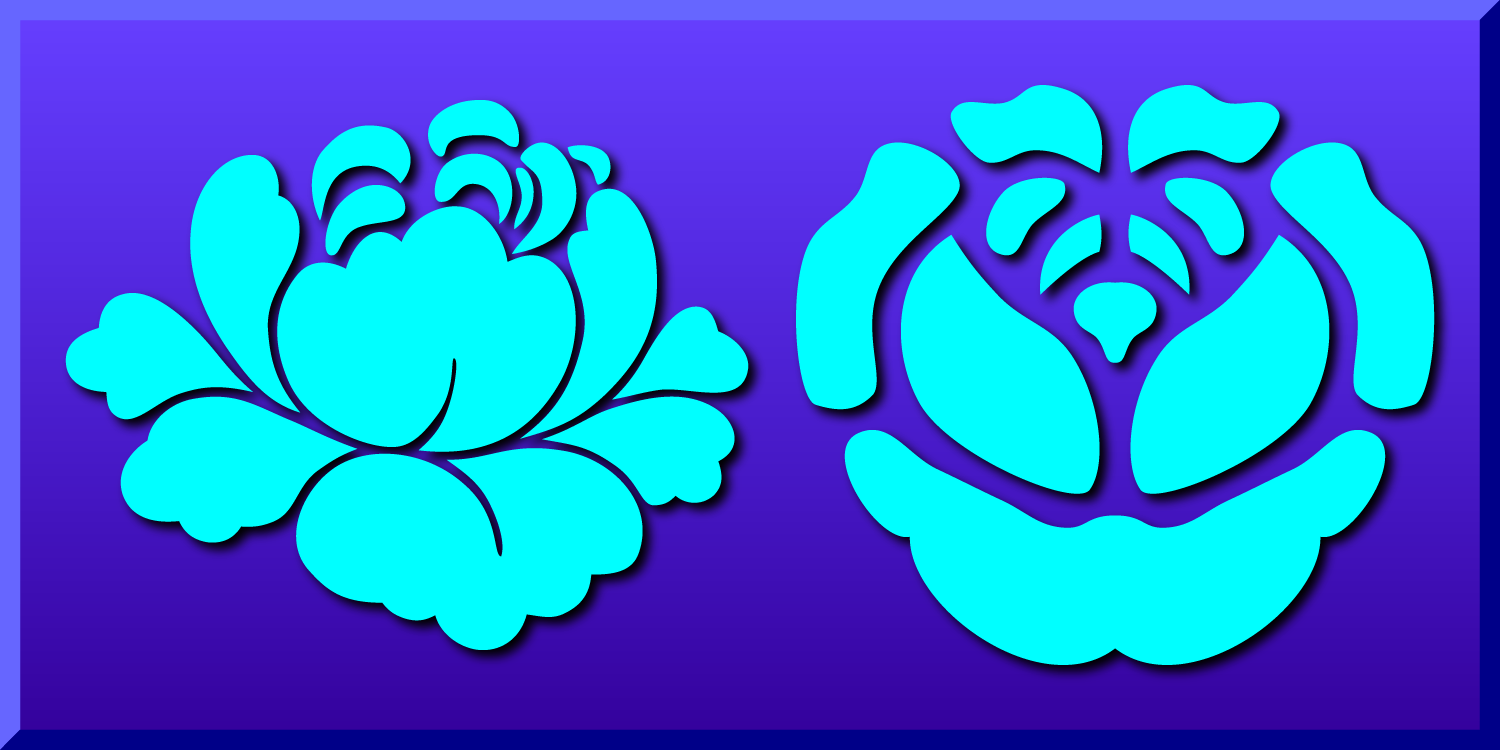
The Art Nouveau Flowers Font is perfect for botanical garden signage, floral boutique branding, vintage wedding invitations, art gallery exhibition materials, botanical illustration projects, luxury perfume packaging, fine jewelry store logos, organic cosmetics branding, and elegant spa promotional materials.
What makes the Art Nouveau Flowers Font so exciting is its exquisite botanical elegance that instantly captures the organic beauty and artistic sophistication of the Art Nouveau movement. This enchanting typeface embodies the flowing natural forms and decorative artistry that defined early 20th century design, creating an immediate impression of refined beauty and artistic heritage. The font's floral character communicates the natural grace and aesthetic refinement that luxury botanical businesses need to attract discerning customers who appreciate both artistic beauty and the timeless elegance of nature-inspired design.
The Art Nouveau Flowers Font family includes Regular weight with complete uppercase and lowercase alphabets, comprehensive numerical sets, essential punctuation marks, and botanical decorative elements that maintain the floral Art Nouveau aesthetic throughout your nature-inspired and luxury design projects.
Luxury botanical businesses and artistic organizations consistently select Art Nouveau Flowers Font Free Download for projects that require authentic artistic appeal and sophisticated natural communication. This exceptional typeface excels in environments where establishing connection to artistic heritage and botanical beauty is crucial for attracting clientele who value aesthetic refinement and natural elegance. The font's artistic character helps communicate the quality and cultural sophistication that luxury botanical customers expect from premium nature-inspired products and services.
The distinctive qualities of Art Nouveau Flowers Font reflect the revolutionary artistic traditions of the Art Nouveau period where natural forms and decorative beauty transformed commercial design and artistic expression. Each character demonstrates the flowing organic lines and delicate botanical details that characterized this influential artistic movement. The font's proportions and spacing create perfect harmony between natural grace and artistic sophistication that modern luxury botanical businesses require for effective premium market positioning.
Contemporary luxury enterprises appreciate how Art Nouveau Flowers Font communicates artistic heritage and botanical refinement. Whether designing packaging for high-end floral arrangements, creating branding for luxury botanical products, or developing marketing for artistic garden experiences, this font delivers the sophisticated character that distinguishes premium botanical businesses from mass-market alternatives. The typeface works exceptionally well for companies emphasizing artistic craftsmanship, natural beauty, and the refined aesthetics of botanical luxury.
The versatility of Art Nouveau Flowers Font extends across multiple artistic applications and luxury botanical marketing initiatives. Fine art museums utilize its elegant character for botanical exhibition materials and artistic collection promotions. Luxury hotels choose it to communicate their commitment to sophisticated natural environments and artistic hospitality experiences. High-end wedding planners rely on its refined appearance to create memorable invitations and elegant event materials for discerning couples.
Digital luxury platforms benefit from Art Nouveau Flowers Font's optimized performance across various artistic applications and botanical communication channels. The font maintains its floral elegance whether displayed on luxury websites, mobile botanical apps, or high-resolution artistic presentations. This technical excellence ensures consistent brand presentation across all luxury botanical communication platforms and artistic engagement scenarios.
The emotional impact of Art Nouveau Flowers Font resonates with audiences who appreciate the intersection of natural beauty and artistic sophistication. The typeface serves as a visual celebration of botanical artistry and refined aesthetics that helps luxury businesses build passionate relationships with customers who seek beauty, elegance, and artistic heritage in their purchasing decisions. This connection to natural grace and artistic refinement makes it invaluable for establishing prestigious botanical brand identities.
Luxury botanical marketing specialists and artistic design professionals recognize Art Nouveau Flowers Font as an essential tool for sophisticated nature-inspired branding. The font captures the essence of botanical artistry while making Art Nouveau elegance accessible to contemporary luxury businesses who want to communicate their commitment to natural beauty, artistic heritage, and refined aesthetics in today's competitive luxury marketplace.